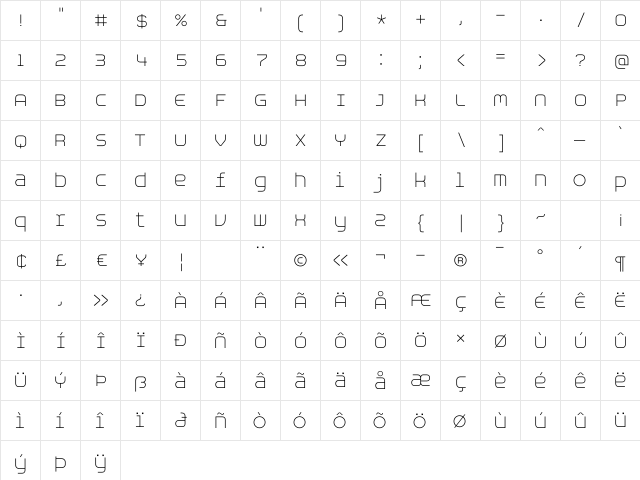
Aspirin AdvanceLight Regular
Design Context for Aspirin AdvanceLight Typeface
Aspirin AdvanceLight takes a measured approach to typography — its balanced proportions and neutral character make it a reliable workhorse for both digital and print work. The delicate stroke weight brings airiness and refinement to layouts.